Font Generator
Looking for a font generator to create stylish text for Instagram, tattoos, social media, or graphic design? This guide explains everything about font generators in simple language so anyone can understand it,
Font generators are fun, useful, and completely beginner-friendly. Whether you need font generator copy and paste, a font generator cursive, or a font generator tattoo, this article covers all your questions. We’ll also include popular keywords like Gilroy font family, Instagram font generator, fancy font generator, and more — naturally and without plagiarism.
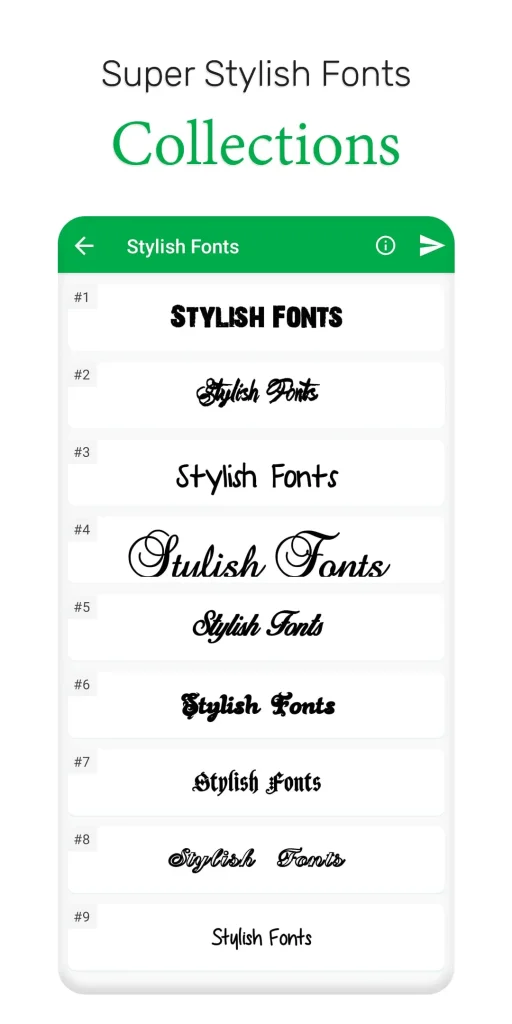
What Is a Font Generator?
A font generator is an online tool that lets you create cool and stylish text instantly. You type your word or sentence into the tool, and it turns your text into different styles such as:
- Bold
- Cursive
- Calligraphy
- Fancy
- Tattoo-inspired
- Small text
- Instagram fonts
- Emo or aesthetic fonts
The best part? You can copy and paste your new text anywhere you want.
Why Do People Use Font Generators?
Font generators are popular because they’re simple and creative. People use them for:
- Instagram bios and captions
- TikTok and Snapchat usernames
- Gaming names (Roblox, Fortnite, PUBG)
- Tattoos
- Posters or school projects
- YouTube titles
- Notes or aesthetic journals
A font generator makes your text stand out — and you don’t need to install anything.
Types of Font Generators (With Keywords Included)
There are many types of font generators online. Each one offers different styles. Here are the most popular categories:
1. Font Generator Copy and Paste
This is the easiest type. You type your message, and the tool gives you many font styles. You can instantly copy and paste them on Instagram, Facebook, TikTok, WhatsApp, or anywhere else.
2. Cursive Font Generator
A cursive font generator creates letters that look like handwriting. The style is smooth, elegant, and perfect for:
- Quotes
- Girl usernames
- Name ideas
- Soft aesthetic posts
This is great for diaries, Instagram bios, and wallpapers.
3. Fancy Font Generator
A fancy font generator creates stylish, cool, and decorative text styles. These are perfect for:
- Fancy usernames
- Gaming profiles
- Digital art
- Stylish name logos
4. Bold Font Generator
If you want your text to stand out, use a bold font generator. It turns normal text into heavy, thick letters.
This is great for titles, headings, and important announcements.
5. Tattoo Font Generator
A tattoo font generator helps you preview tattoo text before getting inked. It’s useful for:
- Name tattoos
- Quotes
- Dates
- Symbols and decorative styles
This helps you choose the perfect style before getting a permanent tattoo.
6. Calligraphy Font Generator
Calligraphy is stylish, artistic handwriting. A calligraphy font generator is perfect for:
- Wedding invitations
- Posters
- Beautiful quotes
- Decorative art
It’s similar to cursive fonts but more elegant.
7. Small Font Generator
A small font generator shrinks your text into tiny Unicode characters. It looks cool and aesthetic, especially on social media.
8. Font Brat Generator
The font brat generator is a trending term used for aesthetic, Gen-Z styled fonts often seen in:
- Brat theme edits
- TikTok bios
- Playful usernames
How Font Generators Work
Most font generators don’t actually create new fonts. Instead, they use special Unicode characters that look like different font styles. Unicode works on almost every app and website, so you can use these fonts anywhere.
The steps are very simple:
- Type your word or sentence
- Choose your style
- Copy
- Paste anywhere you want
That’s why people love font generator copy and paste tools.
Font generators are fun, creative, and extremely easy to use. Whether you want fonts for Instagram, gaming, school, tattoos, or digital art, you can create stylish text in seconds using tools like: